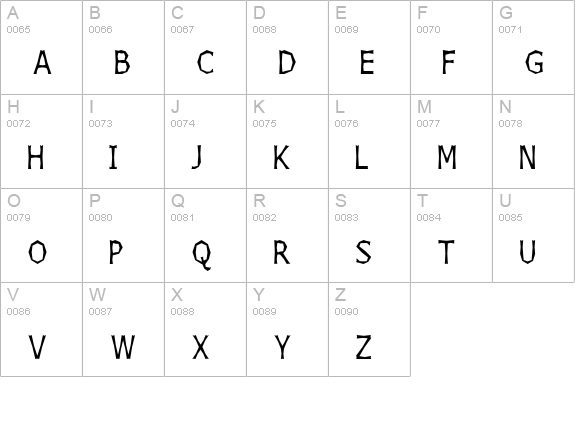
Chizzler Thin Font Details
Chizzler Thin is a delicate, low-contrast variant in the Chizzler typeface family \xE2\x80\x94 well suited to fashion editorial, minimal branding, and high-contrast display.
Chizzler Thin font is an elegant and modern typeface that exudes sophistication and style. With its sleek lines and sharp edges, this font is perfect for adding a touch of class to any design project. Whether you're creating invitations, logos, or website headers, Chizzler Thin font is sure to make a lasting impression. What's even better is that Chizzler Thin font is completely free to download at FontsMarket.com. So you can elevate your designs without breaking the bank. Download this beautiful font today and take your projects to the next level with Chizzler Thin font.